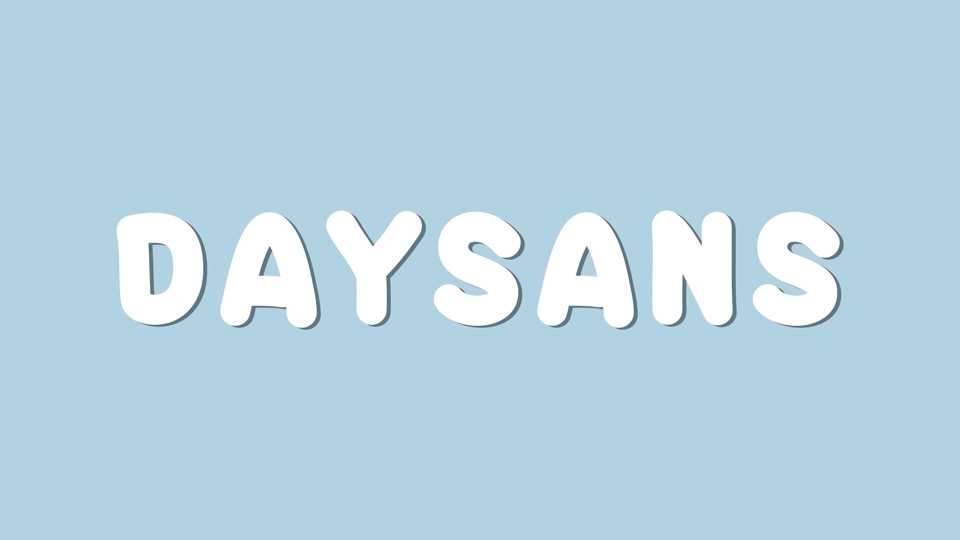
Download Daysans font, a friendly and warm handwritten typeface, perfect for comics, cartoons, creative ideas and more Daysans font will bring an impression to any project with its simple yet powerful style.